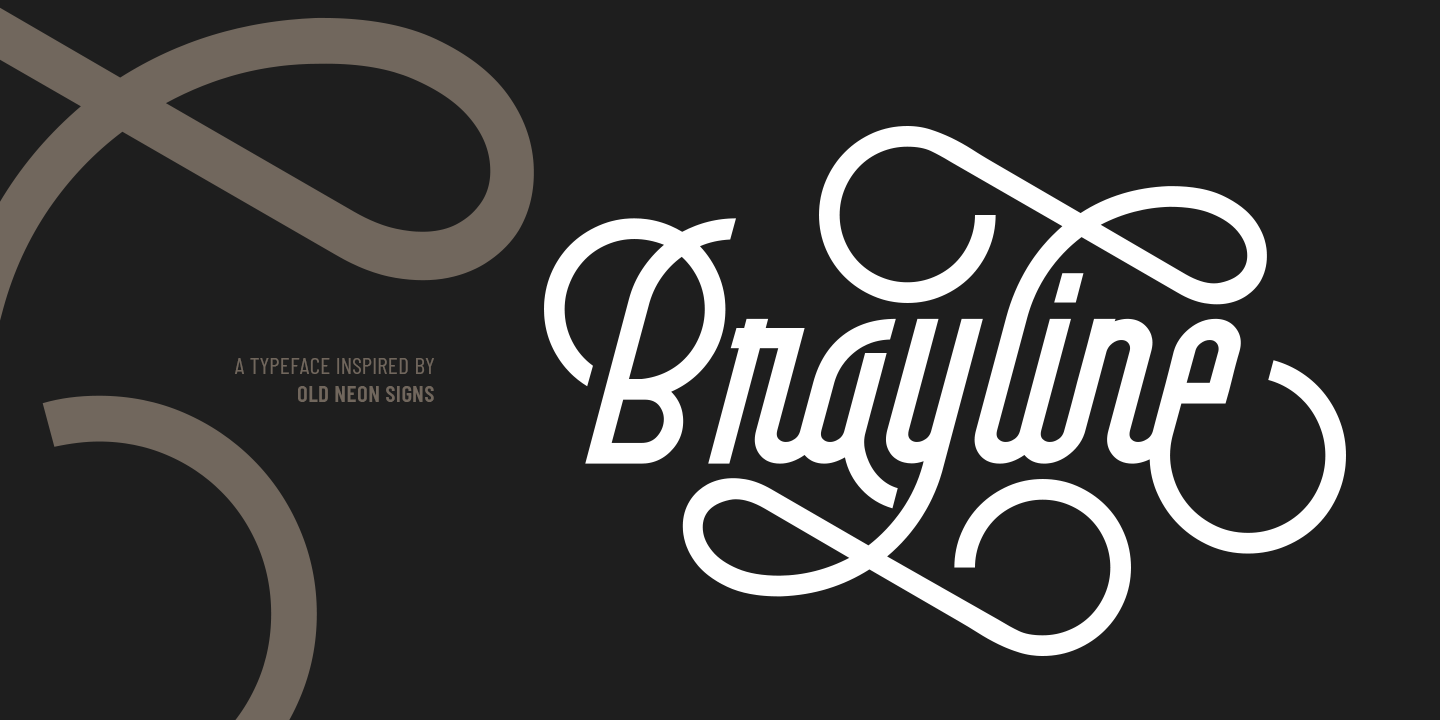
Brayline Font Free Download offers designers a contemporary typography solution that combines sleek modernism with exceptional readability for sophisticated design applications. This commercial font requires purchase for business use, but you can download it for free for testing purposes to evaluate its refined characteristics in your professional projects.
Brayline Font excels across diverse design applications including corporate identity systems, fashion branding, lifestyle magazines, luxury retail communications, modern web interfaces, architectural presentations, premium product packaging, and upscale hospitality materials. Its elegant character makes it particularly effective for projects requiring sophisticated visual communication while maintaining approachable professionalism, ensuring your designs convey refinement and contemporary appeal across both digital platforms and high-end print applications.
What makes Brayline Font truly exciting is its masterful balance of contemporary aesthetics and timeless elegance that creates compelling visual narratives for modern brands. The font features meticulously crafted letterforms that demonstrate exceptional clarity and sophistication at all sizes, from large display applications to detailed body text. Its distinctive character construction incorporates subtle geometric refinements that enhance readability while providing distinctive personality that elevates professional communications. The font's optimized metrics and advanced spacing algorithms ensure superior performance across various screen resolutions and premium print specifications, making it reliable for luxury brand applications.
Brayline Font presents a comprehensive type family engineered to meet demanding design requirements. The family typically includes thin, light, regular, medium, bold, and black weights, complemented by matching italic styles that provide complete typographic flexibility for sophisticated brand hierarchies. Advanced versions often feature extended character sets with international language support, stylistic alternates, and specialized glyphs essential for global luxury communications and premium brand applications.
The Brayline Font Free Download represents exceptional value for designers working on upscale and fashion-forward projects across multiple industries. Whether developing luxury brand identity, creating high-end editorial content, designing premium packaging systems, or producing sophisticated web experiences, this font delivers consistent excellence and memorable visual distinction. Its refined characteristics make it particularly effective for industries including fashion, luxury goods, hospitality, and lifestyle brands seeking to communicate sophistication and contemporary relevance.
For optimal results, Brayline Font pairs beautifully with minimalist design elements and premium color palettes that complement its sophisticated character. Its elegant presence dominates headline applications while maintaining exceptional legibility in editorial contexts. The font's contemporary sophistication and refined appeal make it an invaluable resource for creating luxury communications that resonate with discerning audiences seeking quality and style.